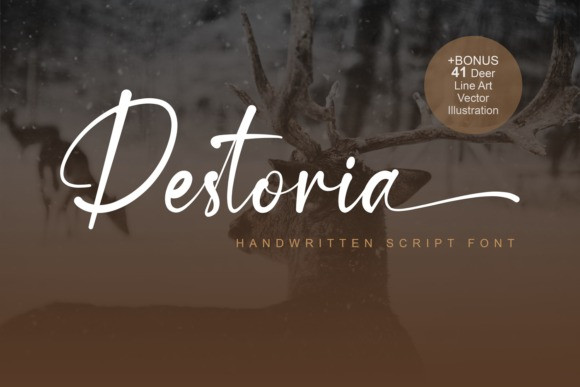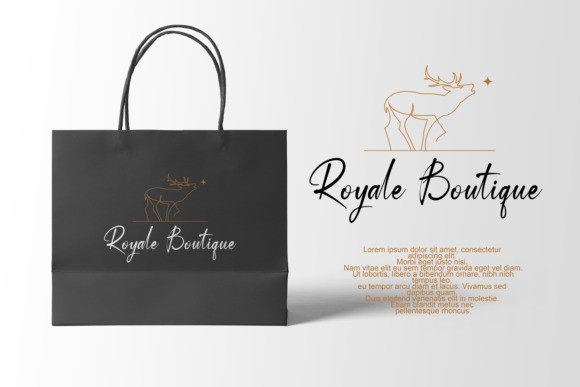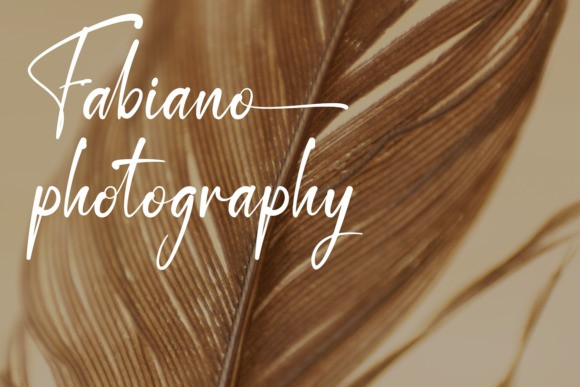
Destoria Handwritten Font
Destoria is a lovely and relaxed handwritten font. It is PUA encoded which means you can access all of the glyphs and swashes with ease! it has a gentle and beautiful flow, and as a result it will elevate each of the designs you wish to create!